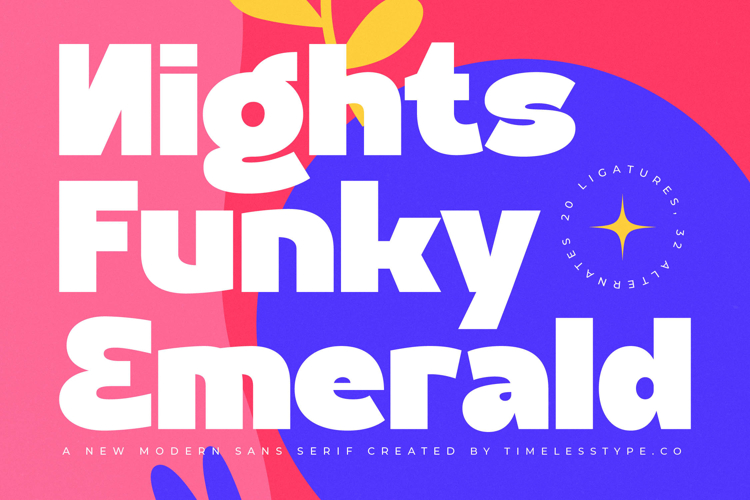
Nights Funky Emerald - New Modern Sans Serif
The Nights Funky Emerald Typeface is a modern sans serif display font with a bold, playful style full of contemporary energy. Equipped with 20 ligatures and 32 stylistic alternates, this typeface allows for fun, dynamic, and modern typographic exploration. Its thick letterforms with sharp geometric cuts deliver a futuristic yet funky vibe, making it perfect for design projects that aim to be cheerful, expressive, and urban in style.
This font works exceptionally well in editorial design, especially for creative posters, lifestyle magazines, modern zines, and pop culture book covers. The variety of ligatures and alternates adds fresh and daring visual dynamics.
In branding and packaging, Nights Funky Emerald is a perfect choice for streetwear fashion, energy drinks, snacks, youth merchandise, and modern lifestyle brands. Its bold aesthetic provides a fun, recognizable, and memorable visual identity.
For entertainment and promotional design, this font is ideal for music concert posters, cultural festivals, pop/EDM album covers, and creative advertising campaigns. Its daring and funky character strengthens visual storytelling with an energetic vibe.
In the world of digital design, Nights Funky Emerald excels in social media content, website branding, digital advertising, and motion graphics. With multilingual support, it remains relevant for global projects while maintaining a contemporary edge.
In short, Nights Funky Emerald Typeface is a modern sans serif display font created to bring funky energy, urban vibes, and bold contemporary style. Perfect for editorial, branding, packaging, entertainment, advertising, and digital campaigns, this font transforms typography into a vibrant, trendy, and powerful design element.